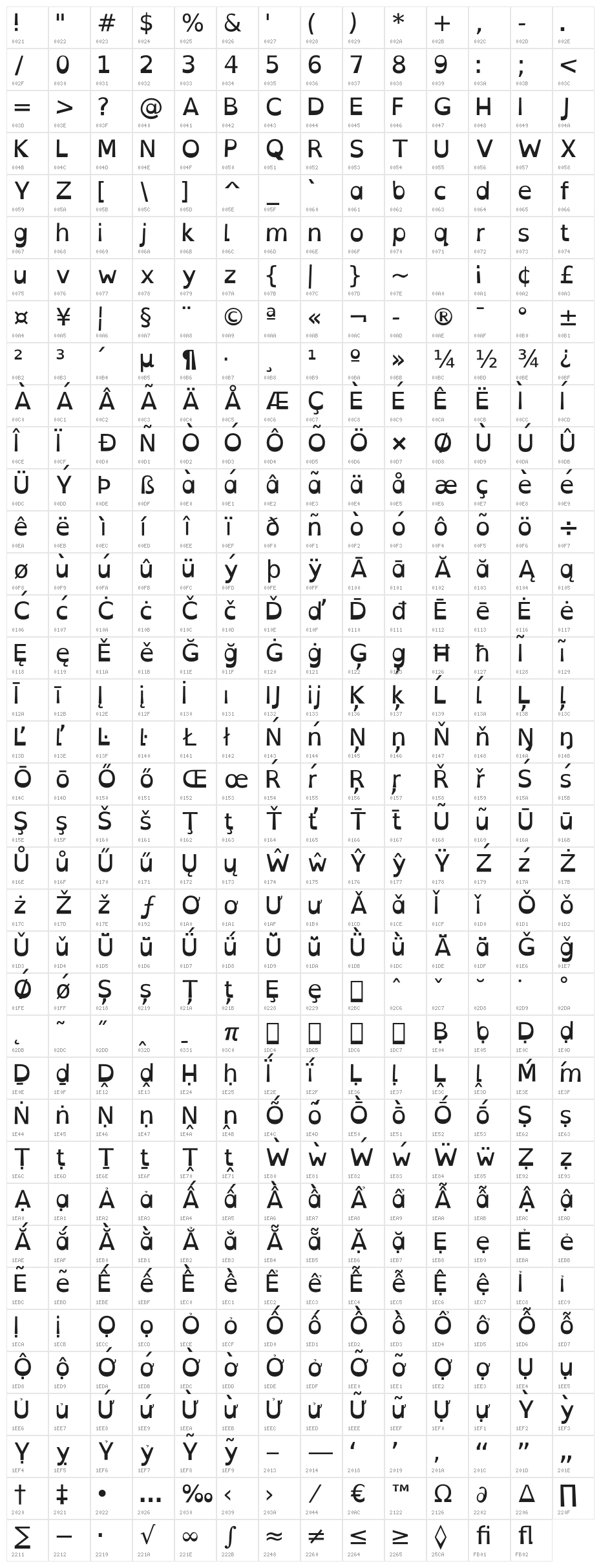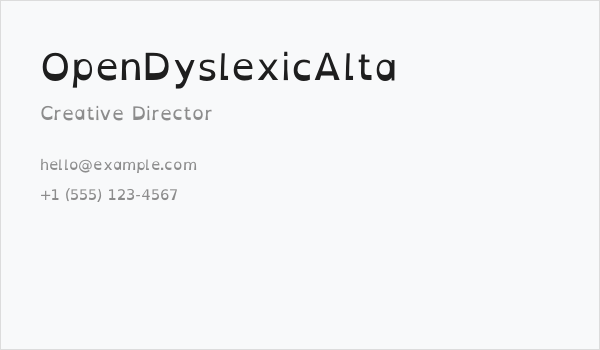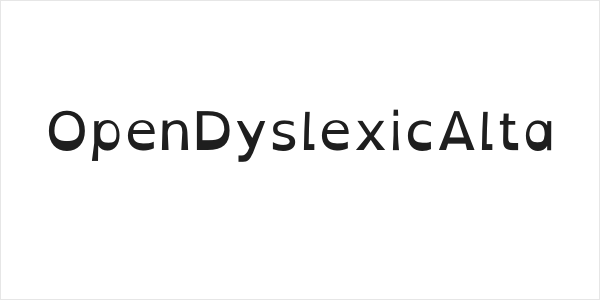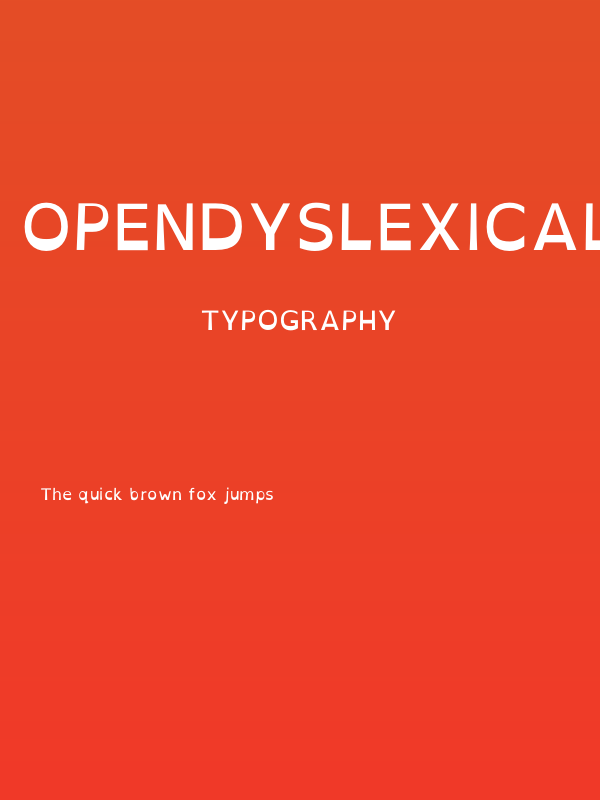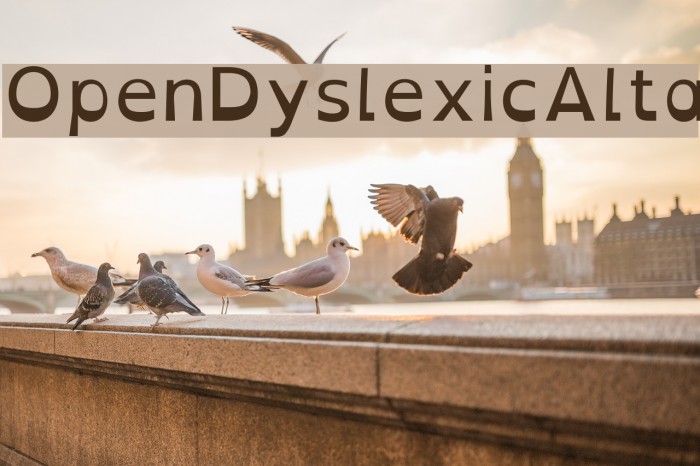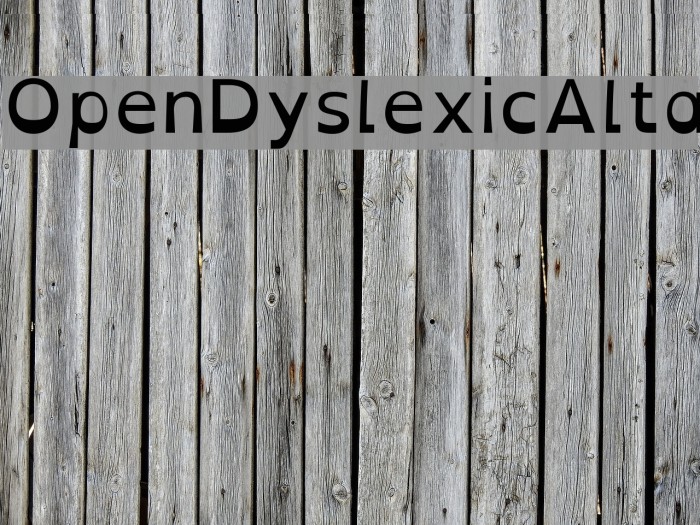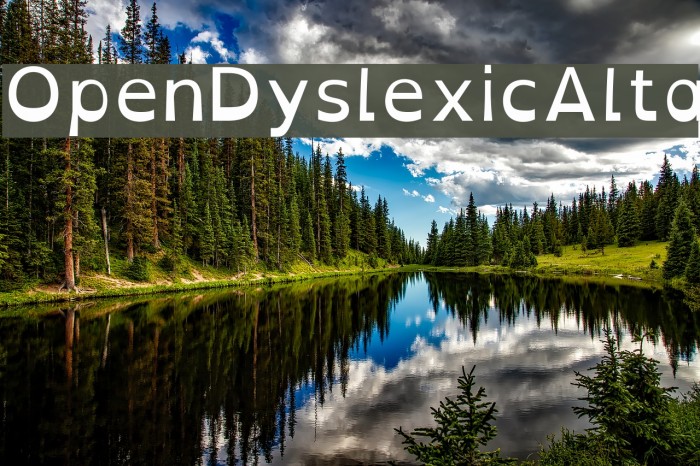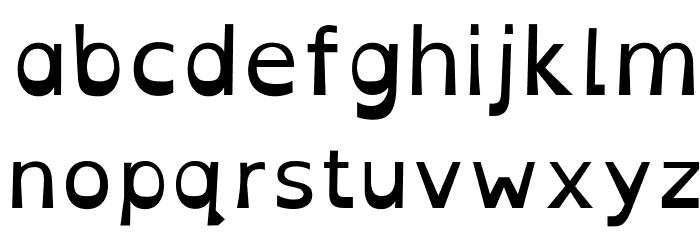
OpenDyslexicAlta Font
OpenDyslexicAlta Description
This font is designed with accessibility in mind, featuring distinct letterforms that help differentiate characters for improved readability. The letters have a unique weight distribution, with heavier bottoms that provide a sense of stability and grounding. This characteristic is particularly beneficial for individuals with dyslexia, as it reduces letter confusion and enhances reading fluency. The font maintains a clean and modern aesthetic, with rounded edges and a friendly appearance. It includes a full set of uppercase and lowercase letters, numerals, and a variety of punctuation marks and special characters. The spacing between characters is balanced, ensuring clarity and ease of reading.
Abelardo Gonzalez - abbiecod.es
| Use Case | Body text, Educational materials, Accessibility projects |
| Proposed Projects | Ideal for educational materials, accessibility-focused web design, children's books, and any project aiming to enhance readability for individuals with dyslexia. |